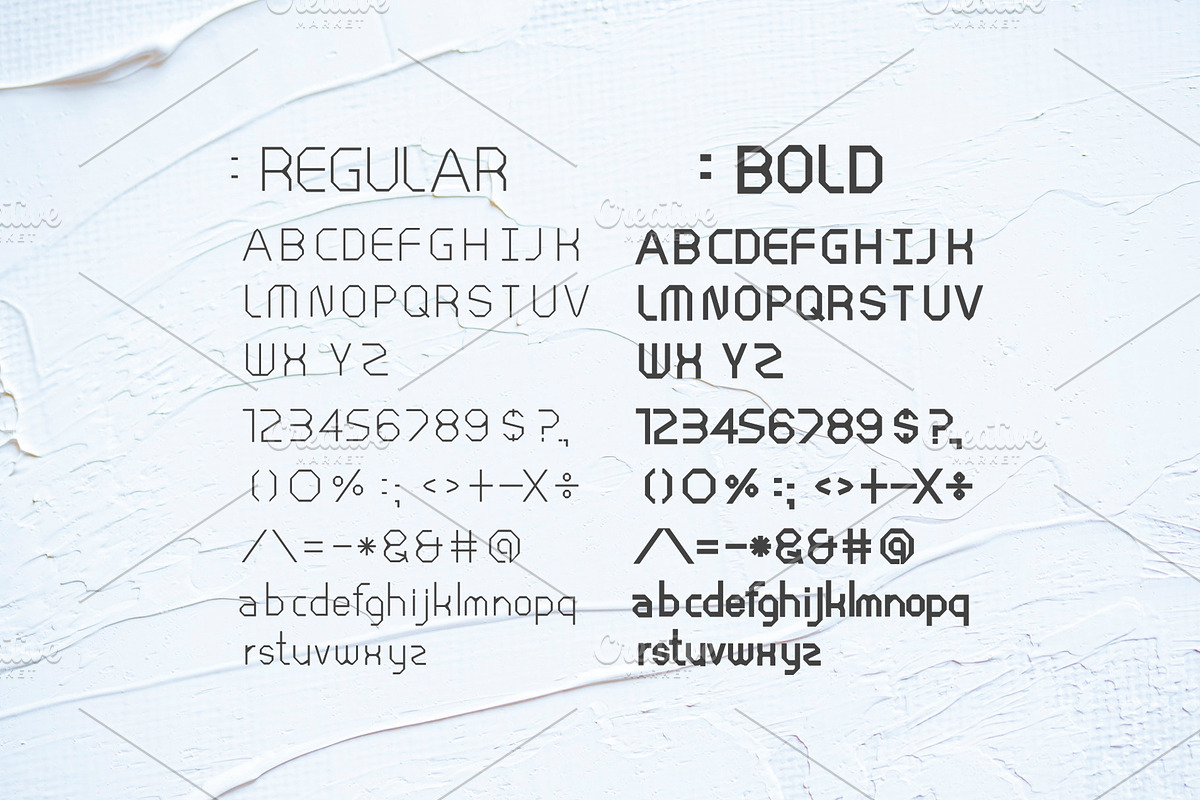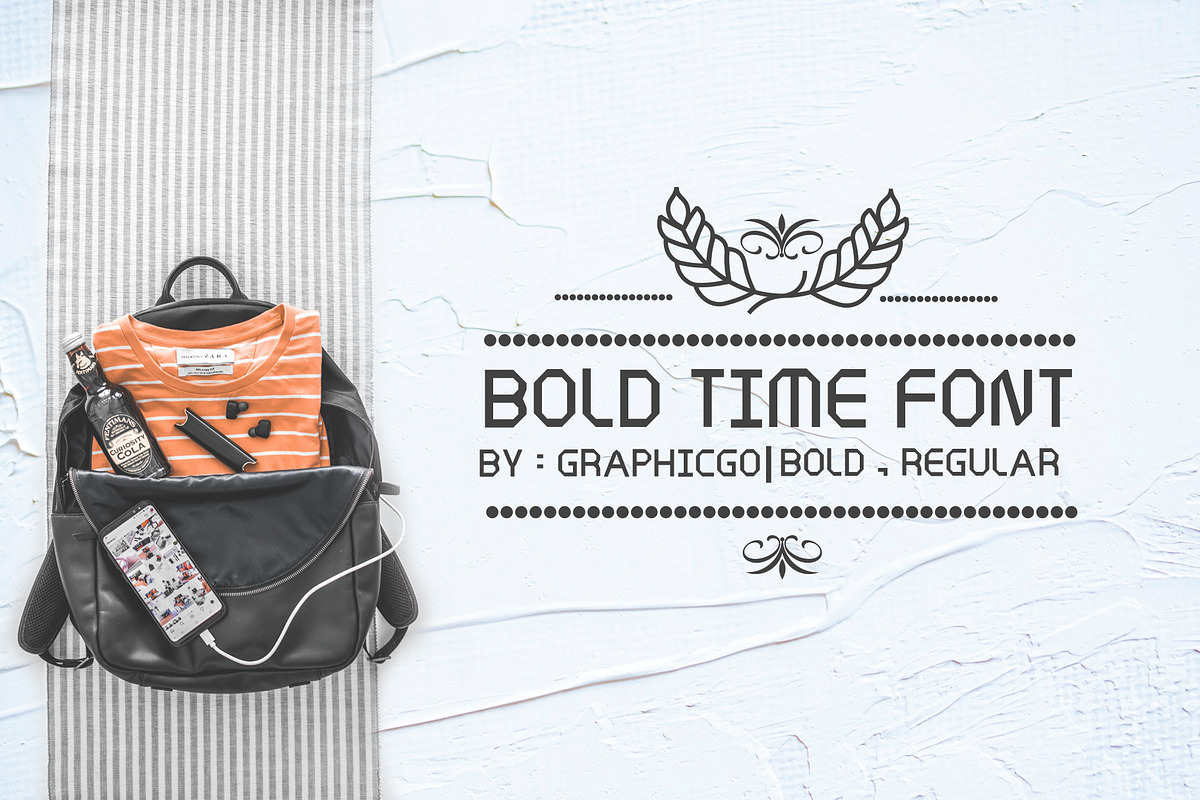
Bold Time Font
Bold Time Font is bold & regular brush clean style. It 's perfect for informal look cards, posters, wall art, branding, DIY projects, greeting cards, labels, quotes, packaging, websites and much more.
Uppercase and Lowercase Number Simple math symbol Thank you : )
Bold Time Font by Graphicgo fits naturally into Branding, posters, packaging, typography.